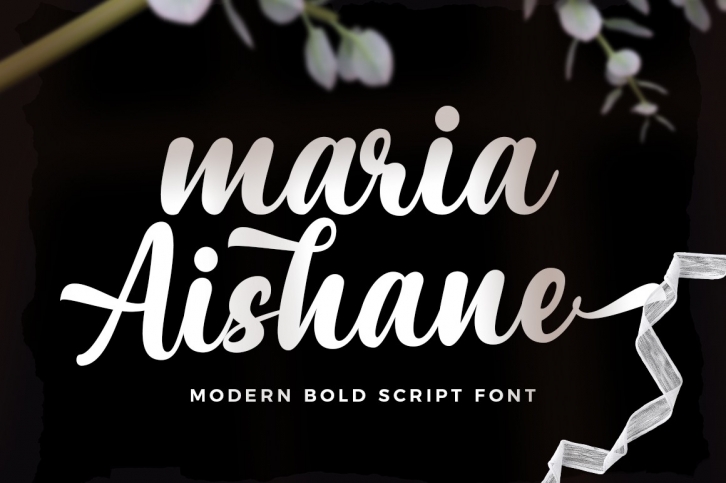
Maria Aishane Script is a trendy and unique font with an authentic style. It was designed by Dora Typefoundry and it's a great choice for creative people who need such a font. It was released on March 18, 2020 and the file size is 7.13 MB. Maria Aishane Script will add an organic vibe to any design idea!